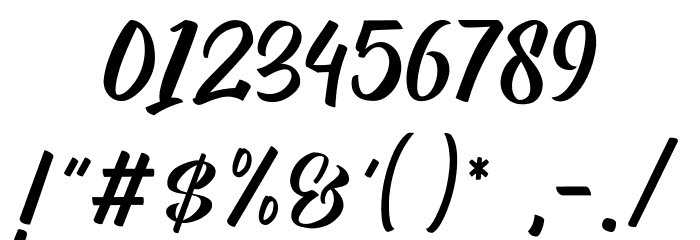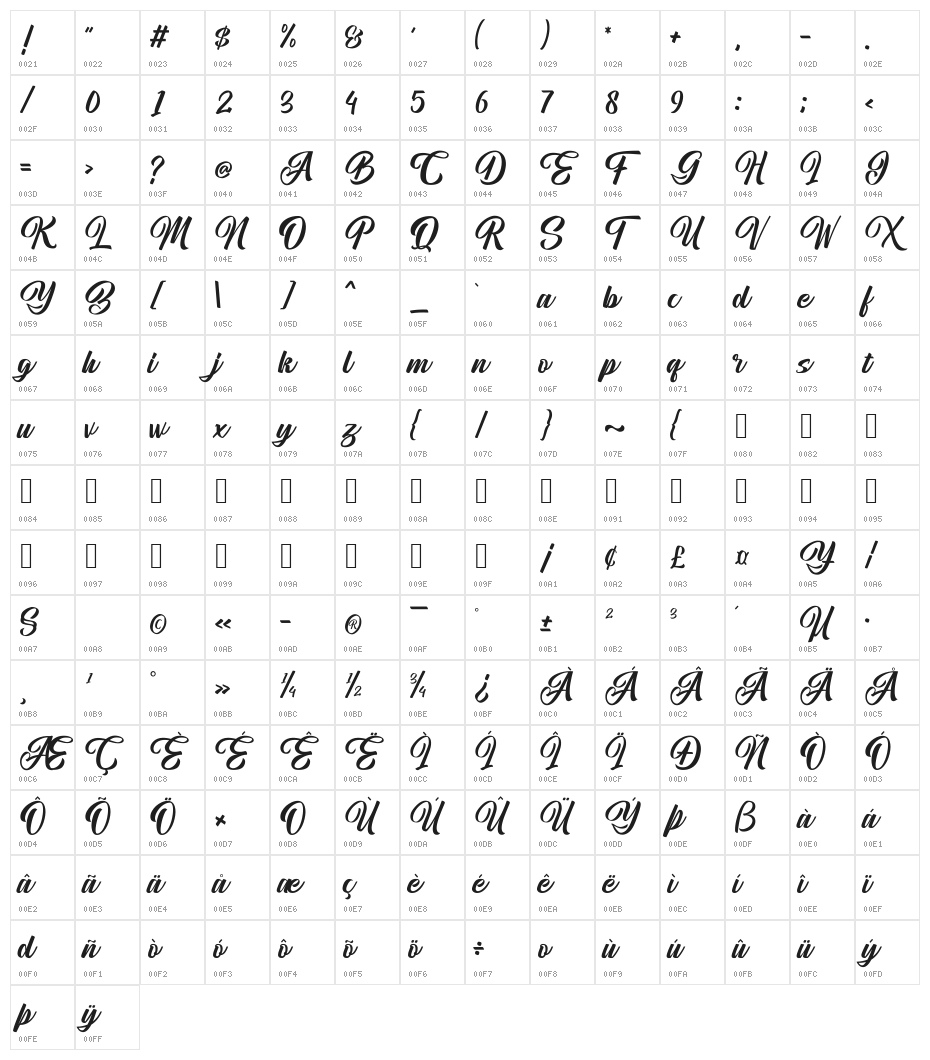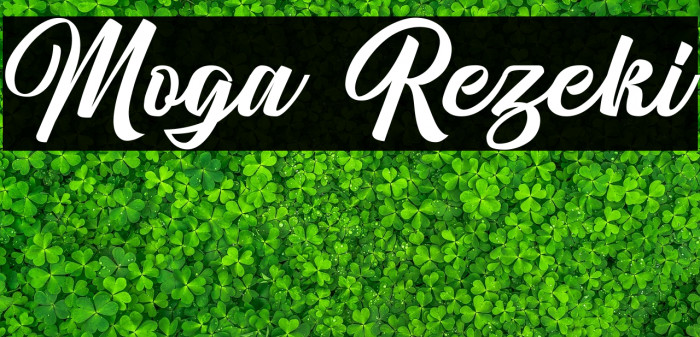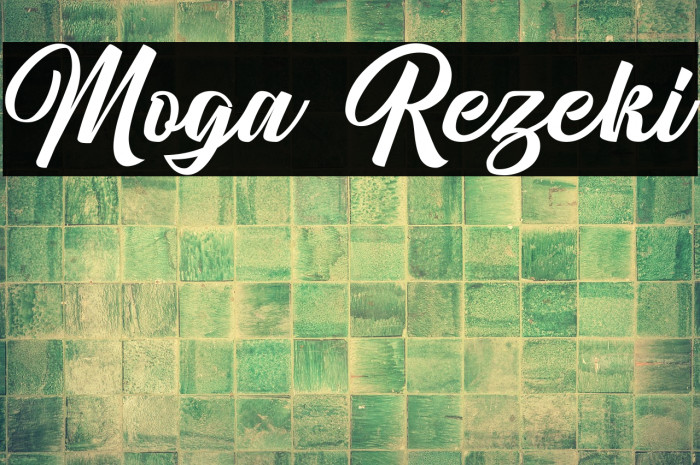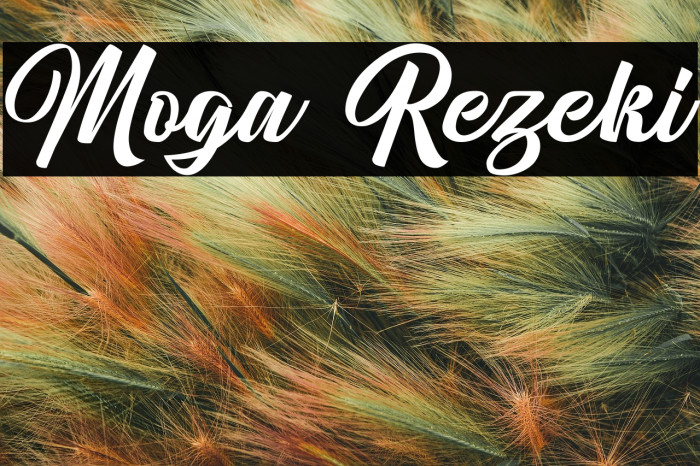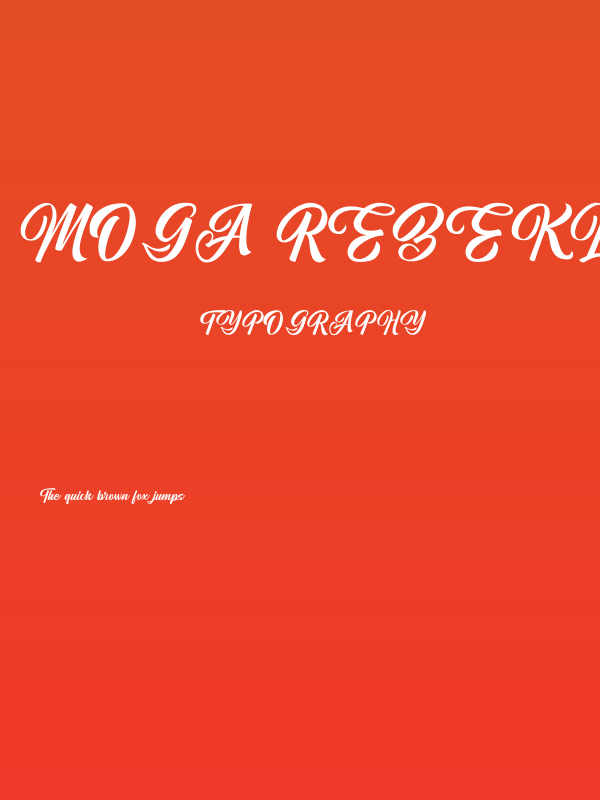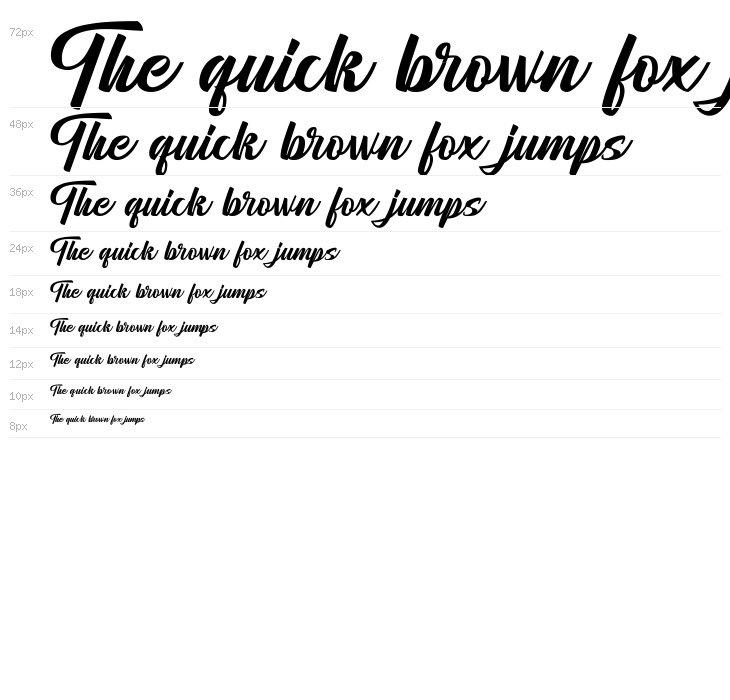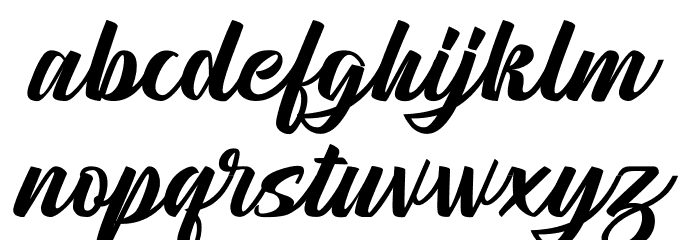
Moga Rezeki Font
Moga Rezeki Description
This font features a bold, cursive style with elegant, flowing lines that create a sense of movement and grace. The uppercase letters are characterized by their elaborate loops and swashes, giving them a decorative flair. The lowercase letters maintain a consistent slant, enhancing the script-like appearance. The numerals are bold and clear, complementing the overall aesthetic. Special characters are designed with the same attention to detail, ensuring a cohesive look across all glyphs. This font's dynamic and stylish nature makes it suitable for a variety of creative applications.